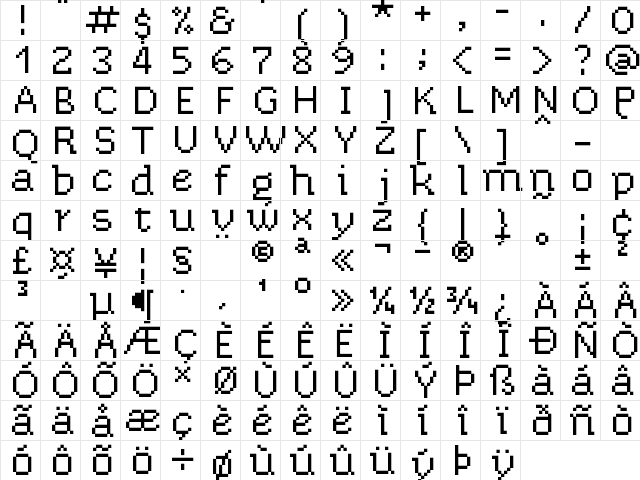
chixat 8 Regular
| Foundry | Sonia Dinamarca Ortiz |
| Designer | Sonia Dinamarca Ortiz |
Design Context for chixat 8 Typeface
chixat 8 is a composed and adaptable typeface that performs quietly and consistently across a wide range of design contexts.